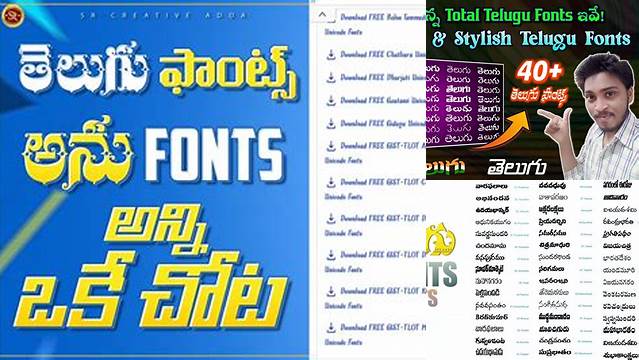
Telugu Non Unicode Fonts: Free Download Guide
Hey guys! Finding the right Telugu fonts, especially non-Unicode ones, can sometimes feel like searching for a needle in a haystack. But don't worry, we've got you covered! This guide dives deep into the world of Telugu non-Unicode fonts, making it super easy for you to find and download them for free. Whether you're working on a vintage project, dealing with legacy systems, or just love the classic look, this is your ultimate resource.
What are Telugu Non-Unicode Fonts?
Before we jump into the download part, let's quickly understand what Telugu non-Unicode fonts actually are. Unlike Unicode fonts, which use a standardized encoding system that allows for consistent display across different platforms and software, non-Unicode fonts use older, proprietary encoding methods. This means they might not display correctly on modern systems without specific configurations. However, they hold a special place, especially in older documents and designs. Often, these fonts carry a unique stylistic flair that's hard to replicate with newer fonts. If you're dealing with legacy projects or have a penchant for retro typography, Telugu non-Unicode fonts might be exactly what you need.
Why Use Telugu Non-Unicode Fonts?
You might be wondering, with all the modern Unicode fonts available, why bother with non-Unicode fonts? Well, there are several reasons! Firstly, many older documents, publications, and designs were created using these fonts. To accurately view or edit these materials, you'll need the original fonts. Secondly, some designers and enthusiasts simply prefer the aesthetic of these classic fonts. They often have a distinct character and charm that Unicode fonts might not offer. Finally, understanding Telugu non-Unicode fonts helps preserve the rich typographic history of the Telugu language. It's about keeping the legacy alive and appreciating the evolution of Telugu script in digital formats. If your work involves archiving, restoring, or replicating vintage Telugu text, these fonts are indispensable tools.
1. Understanding Non-Unicode Encoding for Telugu
Let's dive into the technical side a bit. Understanding non-Unicode encoding for Telugu is crucial when working with these fonts. Non-Unicode fonts use various encoding schemes, such as TSCII or proprietary encodings, which map characters to specific byte values. This is different from Unicode, which uses a universal character set. When you're dealing with non-Unicode Telugu fonts, you'll often need to use specific software or converters to ensure the text displays correctly. For instance, you might need to use a font converter to map the non-Unicode characters to a Unicode equivalent if you want to use the text in a modern application. This process can be a bit tricky, but itβs essential for ensuring compatibility and readability. Knowing the encoding scheme helps you troubleshoot display issues and accurately handle the text in your projects. It's like having a key to unlock the text and make it work seamlessly.
4. Converting Telugu Non-Unicode Fonts to Unicode
Sometimes, you might want to use a non-Unicode font in a modern application that only supports Unicode. That's where converting Telugu non-Unicode fonts to Unicode comes in handy. There are several tools and methods available for this conversion. One common approach is to use a font conversion software, which can map the characters from the non-Unicode encoding to Unicode. Another method involves using online converters that allow you to paste your text and convert it directly. However, keep in mind that the conversion process isn't always perfect. Some characters might not map correctly, or the font's appearance might change slightly. Always review the converted text carefully to ensure accuracy. It's also a good idea to back up your original non-Unicode text before converting, just in case you need to revert to the original format. With the right tools and a bit of care, you can bridge the gap between old and new font technologies.
5. Installing Telugu Non-Unicode Fonts on Windows
Okay, you've downloaded your fonts β now what? Installing Telugu non-Unicode fonts on Windows is usually a straightforward process, but it can vary slightly depending on your operating system. Generally, you'll need to extract the font files from the downloaded archive (if they're in a ZIP or other compressed format). Then, you can right-click on the font file (usually a .ttf or .otf file) and select "Install." Alternatively, you can copy the font files into the Fonts folder in your Windows directory (usually located at C:\Windows\Fonts). For non-Unicode fonts, you might also need to adjust your system's language settings to ensure the fonts display correctly. This might involve changing the system locale or installing specific language packs. If you encounter any issues, check online forums or support resources for your operating system. With a few simple steps, you can have your new Telugu non-Unicode fonts up and running in no time.
6. Installing Telugu Non-Unicode Fonts on macOS
If you're a Mac user, installing Telugu non-Unicode fonts on macOS is also pretty easy. Just like with Windows, you'll first need to extract the font files from any compressed archives. Then, you can simply double-click on the font file, and Font Book, macOS's built-in font management tool, will open. Click the "Install Font" button, and the font will be added to your system. You can also drag and drop the font files directly into the Font Book window. For non-Unicode fonts, you might need to adjust your system's language preferences to ensure proper display. This could involve adding the Telugu language to your input sources or adjusting the text encoding settings. If you run into any snags, the macOS help documentation and online forums are great resources for troubleshooting. With a few clicks, you'll be all set to use your new fonts on your Mac.
7. Troubleshooting Display Issues with Telugu Non-Unicode Fonts
Sometimes, things don't go as smoothly as we'd like. Troubleshooting display issues with Telugu non-Unicode fonts is a common challenge, but don't worry β we can tackle it. The most common issue is that the text appears as boxes or garbled characters. This usually means that the font encoding isn't being recognized correctly. First, make sure that the font is properly installed on your system. Then, check the application you're using to see if it has specific settings for handling non-Unicode fonts. You might need to select a specific encoding (like TSCII) or use a font conversion tool. Another issue can be font conflicts. If you have multiple fonts with similar names, they might interfere with each other. Try disabling other fonts temporarily to see if that resolves the problem. Online forums and communities dedicated to typography are also great resources for finding solutions to specific display issues. With a bit of detective work, you can usually get your fonts displaying correctly.
8. Common Encoding Schemes Used in Telugu Non-Unicode Fonts
Let's talk tech again! Common encoding schemes used in Telugu non-Unicode fonts are important to understand for proper handling. Unlike Unicode, which has a standardized character set, non-Unicode fonts use various encoding methods. One of the most prevalent is TSCII (Telugu Script Code for Information Interchange), which was widely used before Unicode became the standard. Other proprietary encodings were also common, especially in older software and documents. Each encoding scheme maps Telugu characters to different byte values, which means that a font encoded in one scheme might not display correctly if you use a different encoding. When working with non-Unicode fonts, it's crucial to identify the encoding scheme used by the font. This information is often included in the font's documentation or can be found through online font databases. Knowing the encoding scheme allows you to use the correct software or converters to display and edit the text accurately. It's like speaking the font's language, ensuring clear communication between your system and the characters.
9. Best Software for Working with Telugu Non-Unicode Fonts
Having the right tools can make all the difference. Best software for working with Telugu non-Unicode fonts can help you manage, convert, and use these fonts effectively. For font management, consider tools like Font Book (for macOS) or NexusFont (for Windows), which allow you to organize your font library and preview fonts. When it comes to converting fonts, dedicated font converters like FontForge or online conversion tools can be invaluable. These tools can help you map characters from non-Unicode encodings to Unicode, making the text compatible with modern applications. For editing and creating documents with Telugu non-Unicode fonts, you might need older versions of word processors or desktop publishing software that support these encodings. Some specialized text editors also offer features for working with non-Unicode fonts. The key is to find software that supports the specific encoding scheme used by your fonts. With the right software in your toolkit, you can navigate the world of Telugu non-Unicode fonts with confidence.
10. Creating Documents with Telugu Non-Unicode Fonts
So, you've got your fonts and your software β now let's get to work! Creating documents with Telugu non-Unicode fonts requires a bit of a different approach than using Unicode fonts. First, make sure that the software you're using supports the encoding scheme of your font. This might involve selecting a specific encoding option in the software's settings or using a specialized text editor. When typing, you'll need to use a keyboard layout that corresponds to the font's encoding. This might be a standard Telugu keyboard layout or a custom layout designed for the specific encoding. Preview your text frequently to ensure that the characters are displaying correctly. If you encounter any display issues, double-check your encoding settings and font selection. When saving your document, consider saving it in a format that preserves the font's encoding, such as RTF or older document formats. With a little bit of care and attention to detail, you can create beautiful and accurate documents using Telugu non-Unicode fonts.
11. Using Telugu Non-Unicode Fonts in Graphic Design
For designers, using Telugu non-Unicode fonts in graphic design can add a unique touch to your projects. These fonts often have a classic or vintage feel that can be perfect for certain designs. However, it's important to be mindful of compatibility. Non-Unicode fonts might not display correctly on all systems, so consider converting them to Unicode if necessary. When incorporating non-Unicode fonts into your designs, pay attention to legibility. Some of these fonts might have intricate details or unconventional letterforms that can affect readability. Choose fonts that complement your overall design and ensure that the text is clear and easy to read. You might also need to adjust kerning and tracking to optimize the font's appearance. Remember to always check the font's licensing terms before using it in commercial projects. With a thoughtful approach, you can harness the unique charm of Telugu non-Unicode fonts to create stunning graphic designs.
12. Preserving Telugu Non-Unicode Fonts for Future Use
Let's think about the future! Preserving Telugu non-Unicode fonts for future use is crucial for maintaining our typographic heritage. These fonts represent a significant part of the Telugu language's digital history, and it's important to ensure that they're not lost to time. One way to preserve these fonts is to create backups of your font files. Store them in multiple locations, such as on your computer, on external drives, and in cloud storage. Another important step is to document the fonts. Record information about the font's name, creator, encoding scheme, and any licensing terms. This information will be invaluable for future users. Consider sharing your font collection with online font archives or typography communities. This will help ensure that these fonts remain accessible to others. Supporting efforts to digitize and preserve older Telugu documents is also a great way to contribute to font preservation. By taking these steps, we can safeguard these unique fonts for generations to come.
13. Legal Aspects of Downloading and Using Telugu Non-Unicode Fonts
It's important to stay on the right side of the law! Legal aspects of downloading and using Telugu non-Unicode fonts are crucial to consider. Just like with any software or creative work, fonts are often protected by copyright. This means that the font's creator has the exclusive right to control how it's used. Before downloading or using any font, carefully review its licensing terms. Some fonts are free for personal use but require a commercial license for business or commercial projects. Other fonts might be open-source, allowing for free use and modification. Be wary of downloading fonts from untrustworthy sources, as these fonts might be pirated or contain malware. Always download fonts from reputable websites or font foundries. If you're unsure about the licensing terms of a font, it's best to err on the side of caution and contact the font's creator or distributor. By being mindful of copyright and licensing, you can use Telugu non-Unicode fonts legally and ethically.
14. Understanding Font Licensing for Telugu Non-Unicode Fonts
Let's dig deeper into the fine print. Understanding font licensing for Telugu non-Unicode fonts is key to using them correctly. Font licenses dictate how you can use a font, including whether you can use it for personal or commercial projects, whether you can modify it, and whether you can redistribute it. Different font foundries and creators have different licensing terms. Some common types of licenses include: Freeware (free for all uses), Shareware (free for a trial period), Commercial (requires payment), and Open Source (often allows free use, modification, and distribution). When you download a font, the license is usually included in a text file or displayed on the font's website. Read the license carefully before using the font. Pay attention to any restrictions on usage, such as limitations on the number of users or the types of projects you can use the font for. If you're unsure about any aspect of the license, contact the font's creator or distributor for clarification. By understanding font licensing, you can ensure that you're using Telugu non-Unicode fonts in compliance with the law and the creator's wishes.
15. Alternatives to Telugu Non-Unicode Fonts
Okay, let's explore some options! Alternatives to Telugu non-Unicode fonts exist if you're looking for modern solutions or having trouble with compatibility. Unicode Telugu fonts offer several advantages, including consistent display across different platforms and software. Many excellent Unicode Telugu fonts are available for free download, offering a wide range of styles and designs. Online font libraries like Google Fonts and SIL Open Font License provide a wealth of options. Another alternative is to convert non-Unicode fonts to Unicode, as we discussed earlier. This allows you to use the font in modern applications without display issues. However, keep in mind that conversion might not always be perfect, so always review the results carefully. If you're working on a project that requires specific typographic features, such as ligatures or stylistic alternates, Unicode fonts often offer more advanced capabilities. Exploring these alternatives can open up new possibilities for your Telugu typography.
16. Unicode Telugu Fonts: A Modern Solution
Let's shine a spotlight on the modern way! Unicode Telugu fonts: a modern solution offer a seamless experience for displaying Telugu script on digital devices. Unlike non-Unicode fonts, Unicode fonts use a standardized encoding system, ensuring that characters appear correctly across different platforms, operating systems, and software applications. This eliminates many of the compatibility issues associated with older font formats. Unicode Telugu fonts support a wide range of characters, including all the nuances of the Telugu script. They also often include advanced typographic features, such as ligatures and stylistic alternates, which allow for more expressive and refined typography. Many excellent Unicode Telugu fonts are available for free download from reputable sources like Google Fonts and the SIL Open Font License. Using Unicode fonts ensures that your Telugu text will be accessible and readable to a wider audience, making it the preferred choice for modern projects.
17. How to Identify a Telugu Non-Unicode Font
Knowing what you're dealing with is half the battle. How to identify a Telugu non-Unicode font can save you a lot of headaches. One of the easiest ways to identify a non-Unicode font is by its file name or description. Non-Unicode fonts often have names that include abbreviations like TSCII or indicate a specific encoding scheme. Another clue is the font's file extension. While both Unicode and non-Unicode fonts can use .ttf or .otf extensions, non-Unicode fonts might also have older extensions. When you open a document that uses a non-Unicode font, you might see garbled text or boxes if your system doesn't have the font installed or isn't configured to display it correctly. You can also use font identification tools or websites that analyze font files and provide information about their encoding. By paying attention to these details, you can quickly determine whether a font is non-Unicode and take the necessary steps to handle it appropriately.
18. The History of Telugu Typography and Non-Unicode Fonts
Let's take a trip down memory lane! The history of Telugu typography and non-Unicode fonts is a fascinating journey. Before the advent of Unicode, Telugu typography faced significant challenges due to the lack of a standardized character encoding. This led to the development of various non-Unicode encoding schemes, such as TSCII, which attempted to represent the Telugu script in digital formats. These non-Unicode fonts played a crucial role in early Telugu publishing and document creation. However, they also suffered from compatibility issues, as text encoded in one scheme might not display correctly on systems using a different scheme. The introduction of Unicode revolutionized Telugu typography, providing a universal standard for character encoding. Unicode fonts ensured consistent display across different platforms and paved the way for more advanced typographic features. Understanding the history of Telugu typography helps us appreciate the evolution of the script in the digital age and the challenges that were overcome in the transition to Unicode.
19. Challenges of Using Telugu Non-Unicode Fonts Today
Let's be real β it's not always smooth sailing. Challenges of using Telugu non-Unicode fonts today include compatibility issues, display problems, and limited support in modern software. As we've discussed, non-Unicode fonts use various encoding schemes, which can lead to text displaying incorrectly or as garbled characters on systems that don't support the encoding. Converting non-Unicode fonts to Unicode can be a solution, but it's not always perfect and might result in some character mapping errors. Another challenge is finding software that fully supports non-Unicode fonts. Many modern applications are designed primarily for Unicode, which means that non-Unicode fonts might not work as expected or might lack certain features. Additionally, non-Unicode fonts might not be accessible to users with disabilities who rely on screen readers or other assistive technologies. Despite these challenges, Telugu non-Unicode fonts still hold value for archival purposes and for replicating vintage designs. However, for most modern applications, Unicode fonts are the preferred choice.
20. The Future of Telugu Fonts: Moving Beyond Non-Unicode
Time to look ahead! The future of Telugu fonts: moving beyond non-Unicode is bright. With Unicode becoming the universal standard for character encoding, the focus is shifting towards developing more sophisticated and versatile Unicode Telugu fonts. This includes creating fonts that support a wider range of typographic features, such as ligatures, stylistic alternates, and OpenType features. Font designers are also exploring new styles and designs that capture the beauty and nuances of the Telugu script in modern ways. Cloud-based font services and font management tools are making it easier than ever to access and use Telugu fonts across different devices and platforms. As technology evolves, we can expect to see even more innovation in Telugu typography, with Unicode fonts playing a central role in shaping the future of digital communication in Telugu. The shift towards Unicode ensures that Telugu text will be accessible, readable, and visually appealing for generations to come.
21. Open Source Telugu Non-Unicode Fonts: A Community Effort
Let's talk collaboration! Open source Telugu non-Unicode fonts: a community effort highlight the collaborative spirit in preserving typographic heritage. Many dedicated individuals and groups have worked tirelessly to create and share Telugu non-Unicode fonts under open source licenses. This means that these fonts are freely available for use, modification, and distribution, fostering a community-driven approach to font development. Open source fonts often undergo rigorous testing and refinement, resulting in high-quality typographic resources. By contributing to open source font projects, designers and typographers can play a vital role in ensuring the long-term accessibility and preservation of Telugu script in digital formats. The open source movement empowers users to adapt fonts to their specific needs and share their contributions with others, creating a vibrant ecosystem of typographic resources. This collaborative approach is essential for safeguarding the diversity and richness of Telugu typography.
22. Best Practices for Using Telugu Fonts in Web Design
Web designers, listen up! Best practices for using Telugu fonts in web design are crucial for creating accessible and visually appealing websites. When using Telugu fonts on the web, it's essential to choose Unicode fonts to ensure consistent display across different browsers and devices. Use web font formats like WOFF and WOFF2, which are optimized for web use and provide better performance. Consider using font loading strategies to prevent flash of unstyled text (FOUT) or flash of invisible text (FOIT). This can involve using font-display properties or font loading libraries. Ensure that your website's CSS includes appropriate font declarations, including fallback fonts in case the primary font doesn't load. Pay attention to font size and line height to ensure readability. Test your website on different devices and browsers to verify that the Telugu fonts are displaying correctly. By following these best practices, you can create websites that showcase Telugu script beautifully and effectively.
23. How to Contribute to Telugu Font Development
Want to get involved? How to contribute to Telugu font development is a question many passionate typographers and designers ask. There are several ways you can contribute to the growth and evolution of Telugu fonts. If you have design skills, you can create new Telugu fonts or improve existing ones. Consider contributing to open source font projects, where your work can benefit a wider community. You can also provide feedback and suggestions to font designers and foundries. Testing fonts and reporting any issues or inconsistencies is another valuable contribution. If you're a developer, you can create tools and software that support Telugu typography. Promoting the use of high-quality Telugu fonts and advocating for better font support in software and operating systems are also important contributions. By sharing your expertise and passion, you can play a vital role in shaping the future of Telugu typography.
24. Resources for Learning Telugu Typography
Knowledge is power! Resources for learning Telugu typography are abundant and can help you deepen your understanding of the art and science of Telugu letterforms. Online typography courses and workshops offer structured learning experiences. Books and articles on typography provide in-depth knowledge of typographic principles and best practices. Websites and blogs dedicated to typography often feature articles, tutorials, and interviews with typographers. Typography conferences and events offer opportunities to network with fellow enthusiasts and learn from experts. Online forums and communities are great places to ask questions and share your knowledge. Studying the work of renowned Telugu typographers can provide inspiration and insights. By leveraging these resources, you can build a strong foundation in Telugu typography and enhance your skills as a designer or typographer.
25. The Impact of Technology on Telugu Font Design
Let's talk innovation! The impact of technology on Telugu font design has been transformative. Digital font design tools have revolutionized the way fonts are created, allowing designers to craft intricate and precise letterforms. Font editing software provides a wide range of features, including bezier curve editing, glyph management, and kerning adjustments. OpenType technology has enabled the creation of fonts with advanced typographic features, such as ligatures, stylistic alternates, and contextual substitutions. Cloud-based font services have made it easier to access and manage fonts across different devices and platforms. Web font technologies have allowed designers to use custom fonts on websites, enhancing the visual appeal of online content. Artificial intelligence and machine learning are also beginning to play a role in font design, with AI-powered tools assisting with tasks such as font generation and kerning optimization. These technological advancements have expanded the possibilities for Telugu font design, leading to a new era of creativity and innovation.
26. Tips for Choosing the Right Telugu Font for Your Project
Making the right choice is key! Tips for choosing the right Telugu font for your project can help you create visually effective and engaging designs. Consider the purpose and tone of your project. Is it formal or informal, traditional or modern? Choose a font that aligns with the overall message you want to convey. Think about the readability of the font. Is it easy to read at different sizes and in different contexts? Pay attention to the font's weight, kerning, and tracking. Consider the font's personality. Does it have a unique character or style that sets it apart? Look at the font's glyph coverage. Does it include all the characters you need for your project? Test the font in your design software to see how it looks in context. By considering these factors, you can select a Telugu font that enhances your project and effectively communicates your message.
27. Maintaining Consistency with Telugu Fonts Across Platforms
Consistency is crucial for professionalism. Maintaining consistency with Telugu fonts across platforms ensures that your designs look the same regardless of the device or operating system used to view them. Use Unicode fonts, which are designed to display consistently across different platforms. Embed fonts in your documents or use web fonts for online content to ensure that the correct fonts are displayed. Use consistent font sizes and styles throughout your project. Test your designs on different devices and browsers to identify and address any display issues. Use font management tools to keep your font library organized and up-to-date. Communicate font specifications clearly to collaborators to avoid discrepancies. By following these tips, you can ensure that your Telugu typography is consistent and professional across all platforms.
28. The Importance of Kerning and Tracking in Telugu Typography
Let's get technical! The importance of kerning and tracking in Telugu typography cannot be overstated. Kerning refers to the adjustment of space between individual letter pairs to improve readability and visual appeal. Tracking, also known as letter-spacing, refers to the uniform adjustment of space between all letters in a word or line. Proper kerning and tracking ensure that the letters in Telugu words flow smoothly and evenly, creating a harmonious and legible text. Poor kerning and tracking can lead to awkward spacing, making the text difficult to read and detracting from the overall design. Telugu script, with its complex letterforms and ligatures, often requires careful kerning and tracking to achieve optimal results. Font designers and typographers pay close attention to these details to create fonts that are both aesthetically pleasing and highly readable. By understanding and applying kerning and tracking principles, you can elevate your Telugu typography and create designs that are visually polished and professional.
29. Common Mistakes to Avoid When Working with Telugu Fonts
Let's learn from others' mishaps! Common mistakes to avoid when working with Telugu fonts can save you time and frustration. One common mistake is using non-Unicode fonts in modern applications, which can lead to display issues. Another mistake is neglecting to check font licensing terms before using a font for commercial projects. Using too many different fonts in a single design can create a cluttered and confusing look. Ignoring kerning and tracking can result in poorly spaced text. Using incorrect font sizes or line heights can affect readability. Failing to test designs on different devices and browsers can lead to inconsistencies in font display. Overlooking font embedding for documents or web fonts for websites can result in font substitution. Not backing up your font collection can lead to data loss. By avoiding these common mistakes, you can ensure that your Telugu typography is accurate, professional, and visually appealing.
30. Resources for Downloading Telugu Keyboard Layouts
Typing in Telugu just got easier! Resources for downloading Telugu keyboard layouts are essential for anyone who wants to type in Telugu script on their computer or mobile device. Most operating systems, such as Windows, macOS, and Android, offer built-in Telugu keyboard layouts. You can typically enable these layouts in your system settings. Online resources, such as Microsoft's Language Accessory Packs and Google Input Tools, provide additional Telugu keyboard layouts and input methods. Websites dedicated to Telugu language computing often offer downloads of custom keyboard layouts. You can also find keyboard layout diagrams and tutorials online to help you learn how to use a Telugu keyboard. Some software applications and websites offer virtual Telugu keyboards that you can use to type directly in your browser. By exploring these resources, you can find a Telugu keyboard layout that suits your needs and preferences, enabling you to type in Telugu with ease.